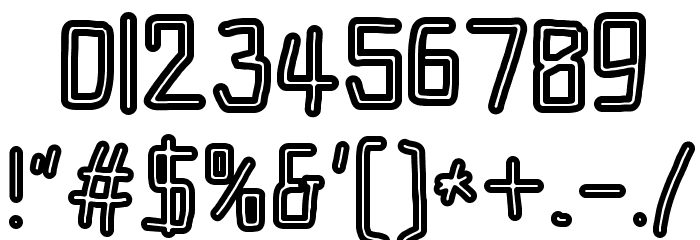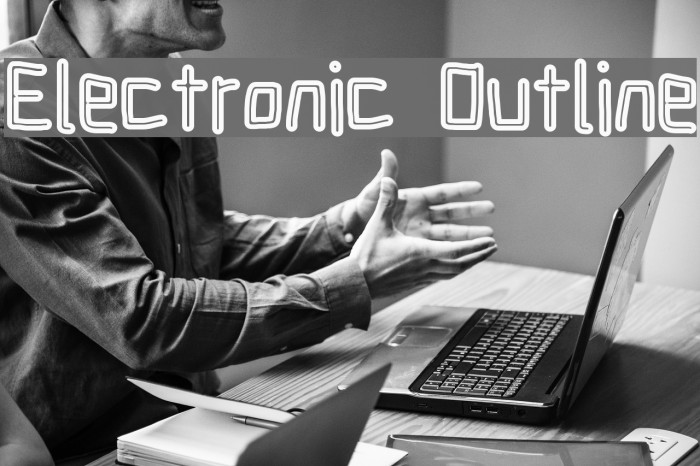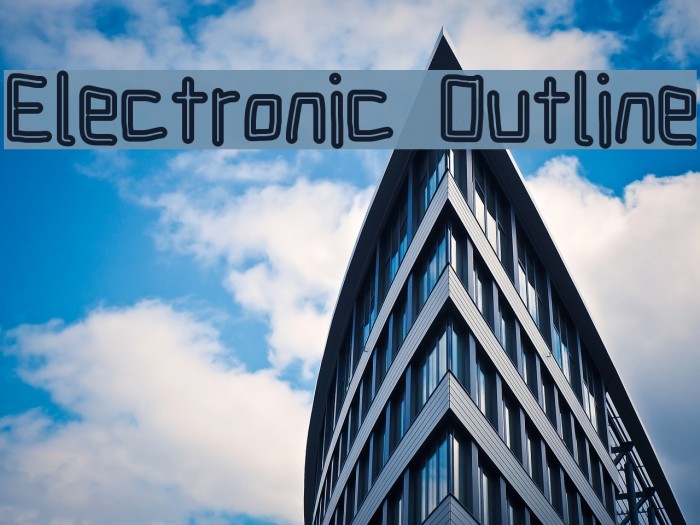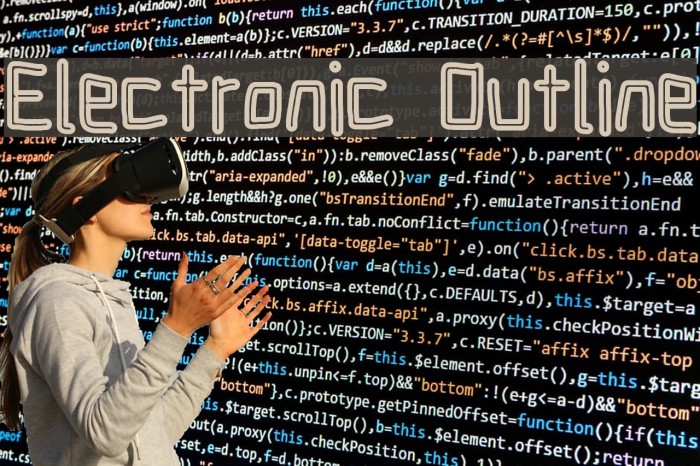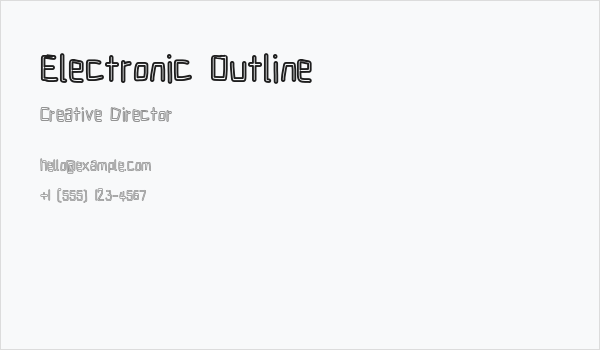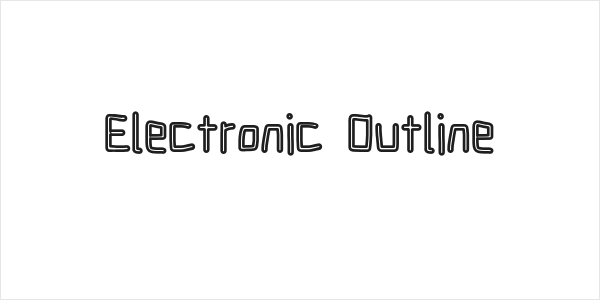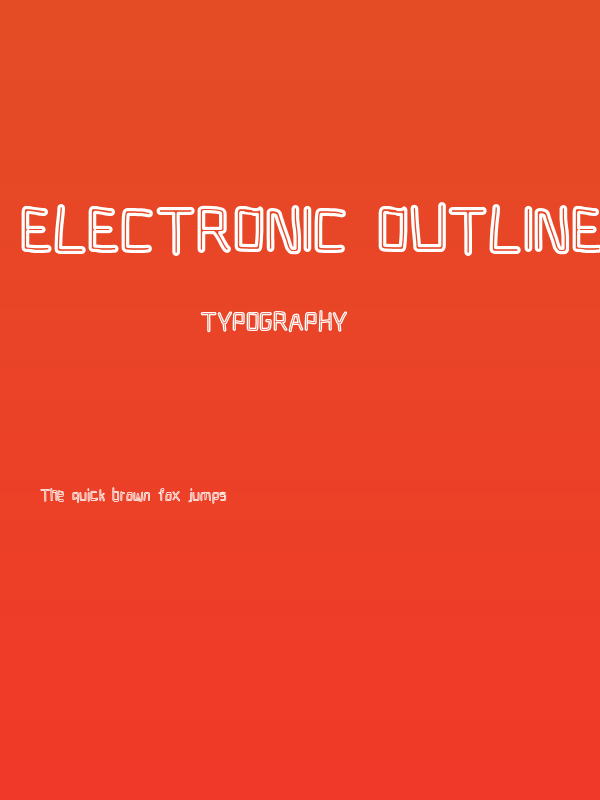
Electronic Outline Font
Electronic Outline Description
This font features a unique, futuristic outline style that gives each character a distinct electronic vibe. The letters are formed with a consistent, bold outline that creates a hollow effect, making it stand out in digital and modern contexts. The uppercase and lowercase letters maintain a uniform width, contributing to a cohesive appearance. The numerals and special characters follow the same design principles, ensuring a seamless integration across different uses. This font's geometric and structured form is ideal for projects that require a modern and tech-inspired aesthetic.
| Proposed Projects | Ideal for digital interfaces, tech branding, video game titles, and futuristic-themed posters. |